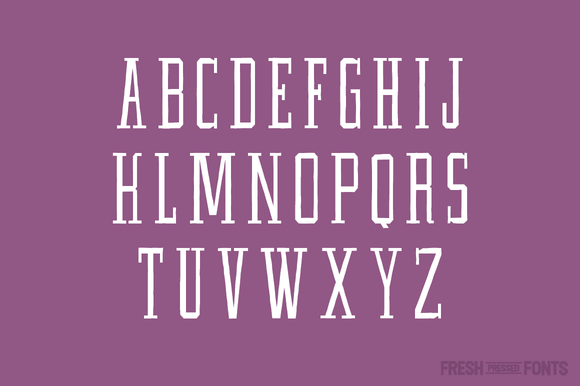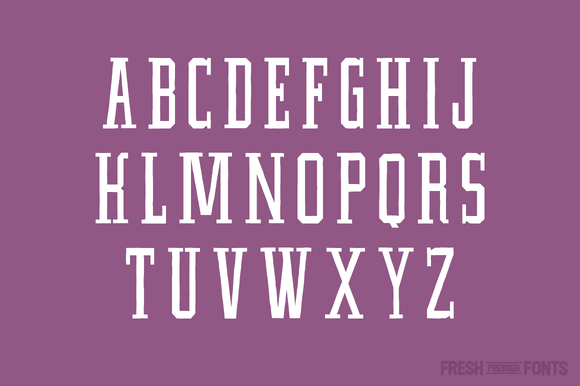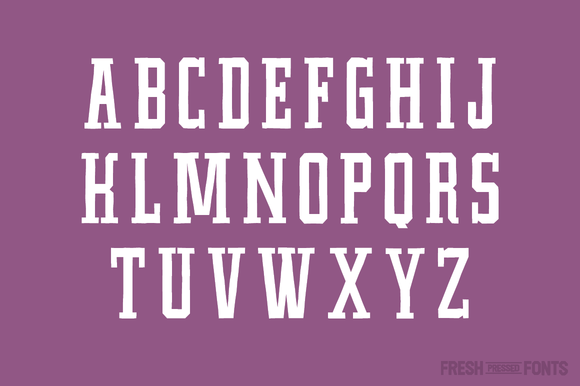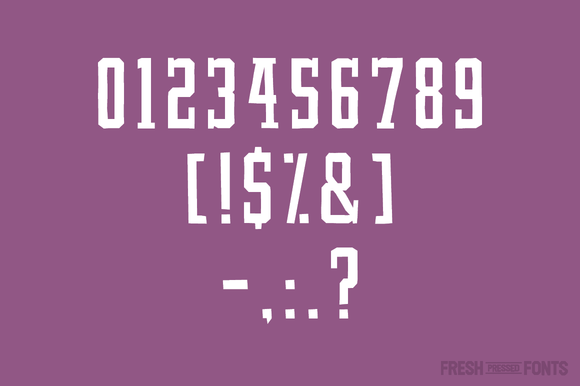
The Perfect Blend of Whimsy and Nature
As a designer, there’s nothing quite like the thrill of discovering a new font that perfectly captures the essence of your latest project. For me, it’s that moment when everything comes together – the typography, the color palette, the overall vibe. And that’s exactly what happened when I stumbled upon the Fairtrade Font.
This charming display font is a masterclass in organic typography, with its condensed serif face and rough edges evoking the feeling of hand-drawn illustrations. With its whimsical feel throughout each weight, the Fairtrade Font is the perfect choice for designers looking to add a touch of character to their designs. Whether you’re working on a branding project or a editorial piece, this font is sure to help your design stand out from the crowd.
What sets the Fairtrade Font apart is its versatility – it’s strong enough to hold its own as a display face, yet delicate enough to add a touch of elegance to even the most intricate designs. As a designer, there’s no denying the value of having a font like this in your toolkit – it’s a game-changer for anyone looking to add a little bit of magic to their work.
Fairtrade Font Key Features
- Font Family: A unique and recognizable font family designed specifically for Fairtrade certification, available in both serif and sans-serif styles.
- Character Set: A comprehensive character set covering Latin, Greek, Cyrillic, and other languages, making it suitable for global branding and labeling.
- Unique Characteristics: The Fairtrade Font features a distinctive design element, such as a stylized leaf or logo, to reinforce the Fairtrade certification and values.
Designer Review: Fairtrade Font
Overall, I have mixed feelings about the Fairtrade Font. While it’s a well-intentioned project, it’s not without its limitations.
- Unique aesthetic: The font has a distinct, handcrafted feel that sets it apart from more generic sans-serif fonts.
- Meaningful mission: The Fairtrade Font aims to promote fair labor practices and support small-scale farmers, which is a commendable goal.
- Customization options: The font comes with a range of weights and styles, allowing designers to create a cohesive visual identity.
- Limited character set: The font only includes a basic set of characters, which may not be suitable for complex text-based projects.
- Readability issues: At smaller font sizes, the font can become difficult to read, especially for those with visual impairments.
- Compatibility concerns: Some designers have reported issues with the font rendering correctly in certain software and browsers.
While the Fairtrade Font shows promise, it’s essential to weigh its limitations against its unique benefits. If you’re looking for a distinctive font with a strong social mission, it may be worth considering. However, for more complex or high-stakes projects, you may want to explore alternative options.
Introduction to Fairtrade Font